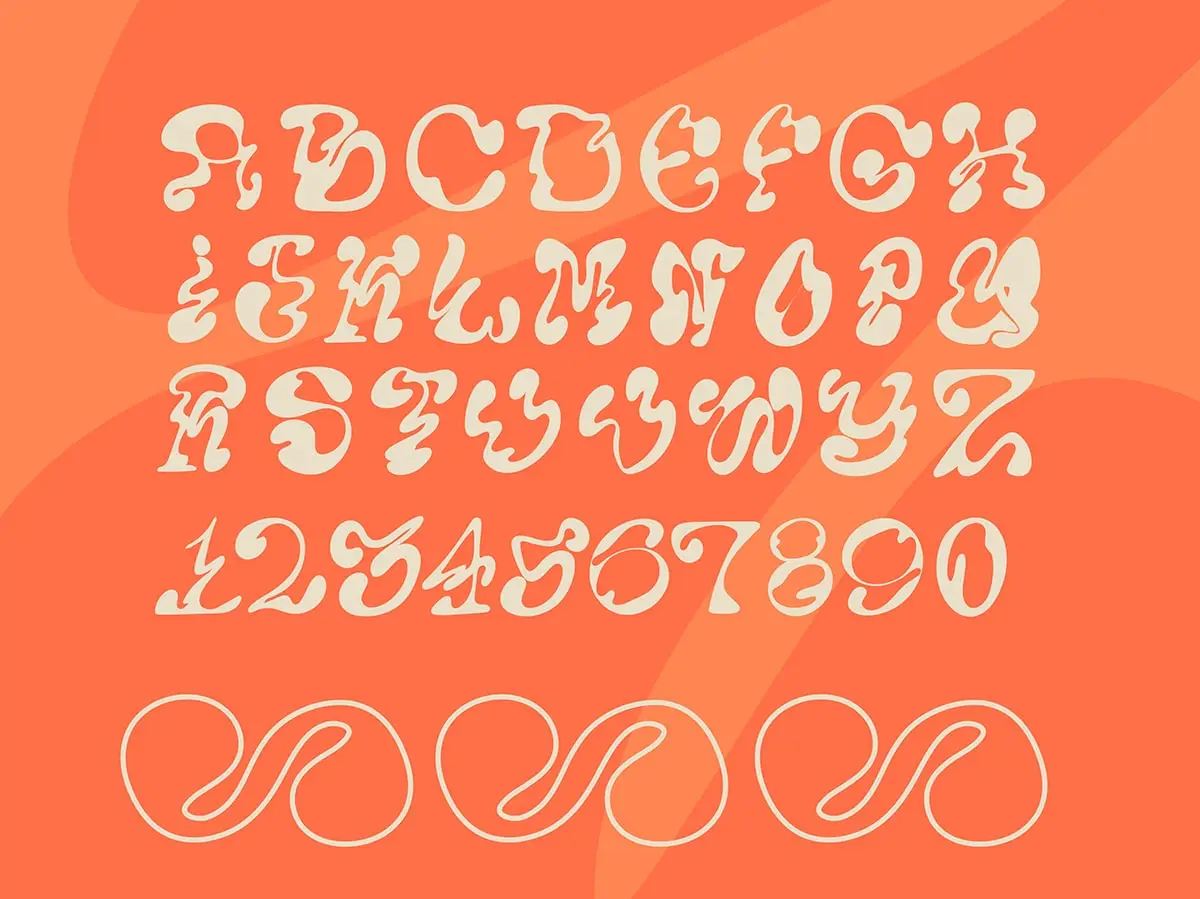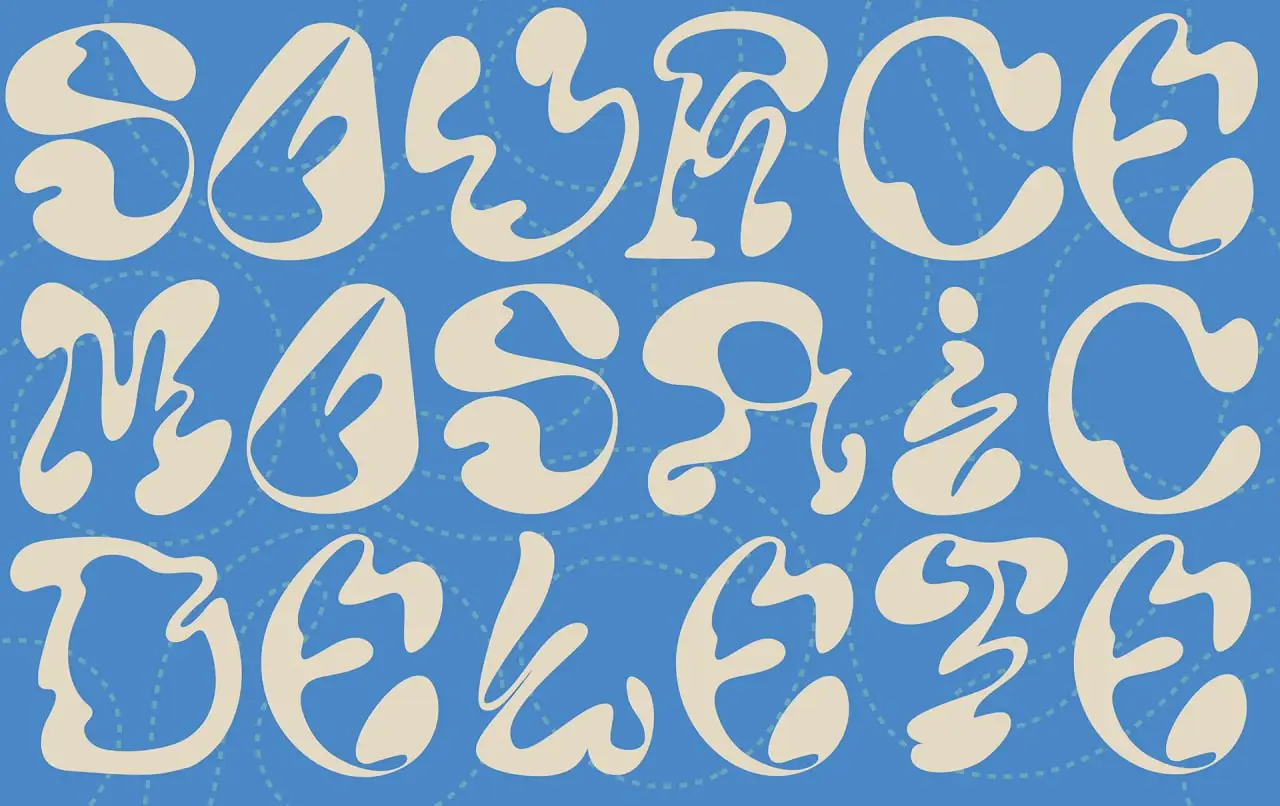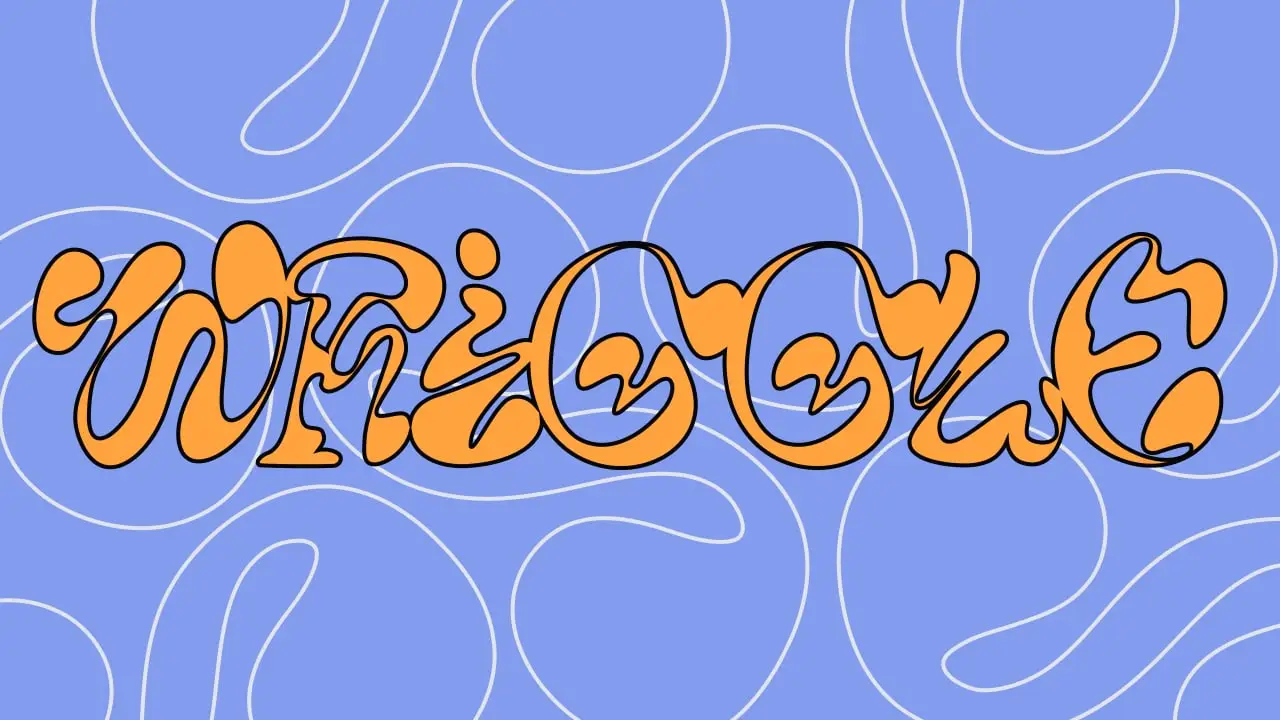
Wriggle-Free Font
The Wriggle-Free Font is a unique typeface designed to bring a playful yet professional touch to your projects. With its distinct curves and clean lines, this font is perfect for a variety of applications.
• Weights: Light, Regular, Bold
• Ideal for branding and logo design
• Great for web and print materials
• Suitable for UI design and digital applications